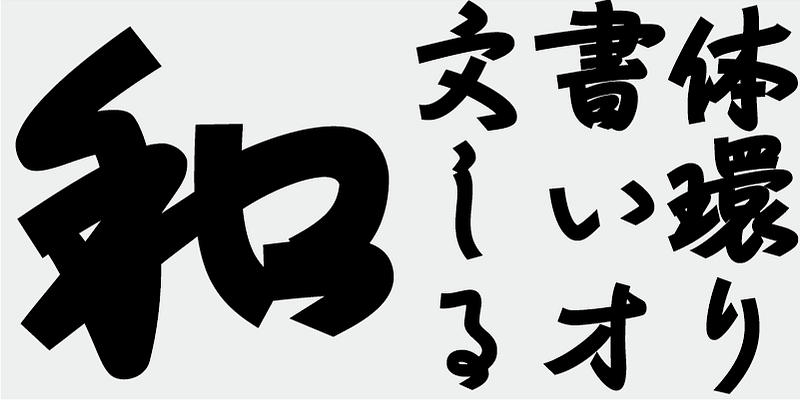
AB Ryusen Fuyu Font Free Download
AB Ryusen Fuyu Font Free Download is a beautifully artistic Japanese-style typeface that captures the serene, delicate feel of winter through expressive brush-like strokes and elegant character design. Inspired by traditional calligraphy, AB Ryusen Fuyu delivers a poetic balance between strength and softness—ideal for seasonal campaigns, cultural event posters, poetry books, and designs that seek a refined, atmospheric touch.
This font supports both Japanese and Latin scripts, making it an excellent choice for bilingual designs. Its flowing forms and subtle details bring a handcrafted feel to digital and print layouts alike, evoking calmness, tradition, and depth.